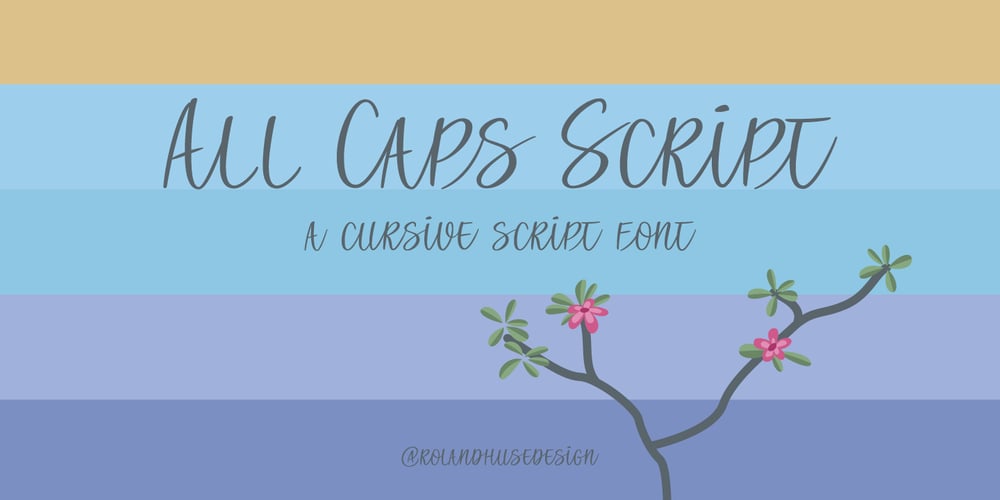
All Caps Script Font Family was designed by Roland Hüse and published by Roland Hüse Design. All Caps Script contains 1 styles and family package options. “You are not supposed to type All Capitals with a script font”. Well, what if there is a font that’s designed specifically with that idea in mind, to type all capitals? In this cursive, handwritten script, even lowercase letters are small caps. Make your designs stand (and shout) out with this playful, connecting script font! I hope you enjoy and make awesome designs with it! Character set coverss Western, Eastern and Central European accented characters, symbols and basic punctuation.